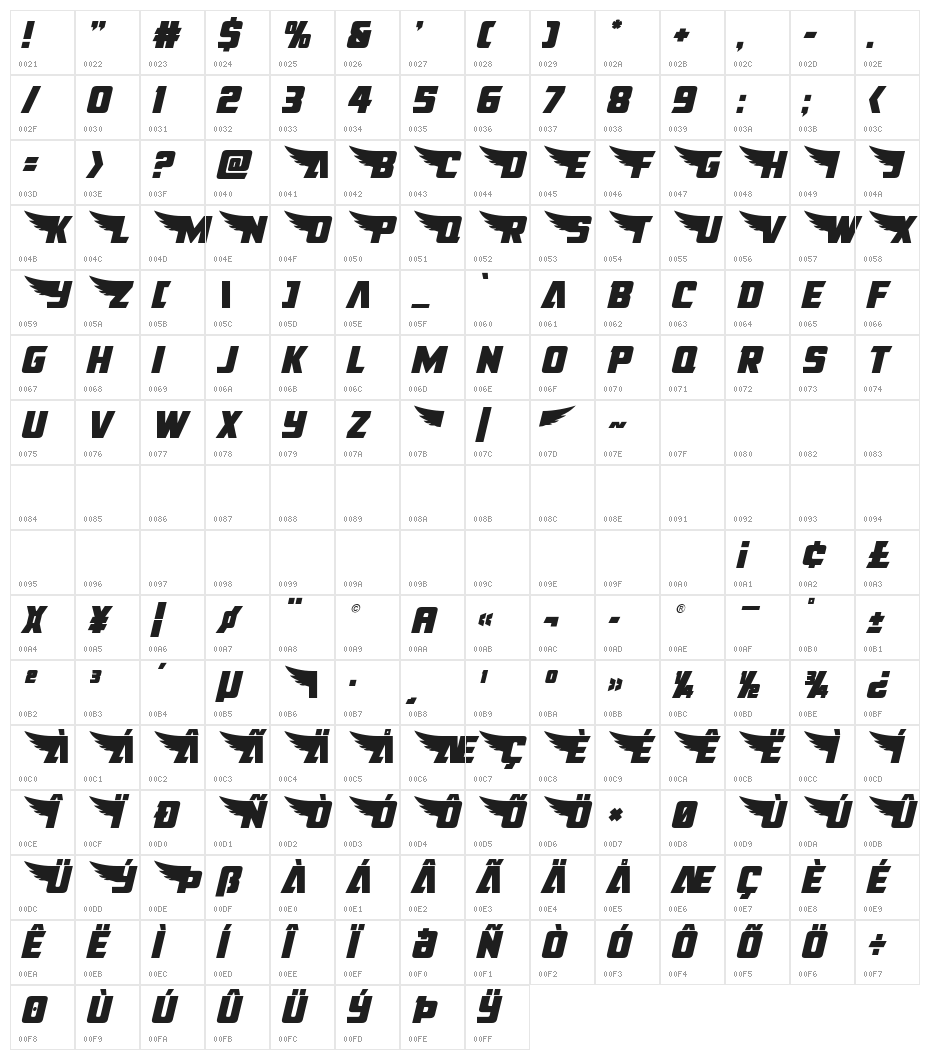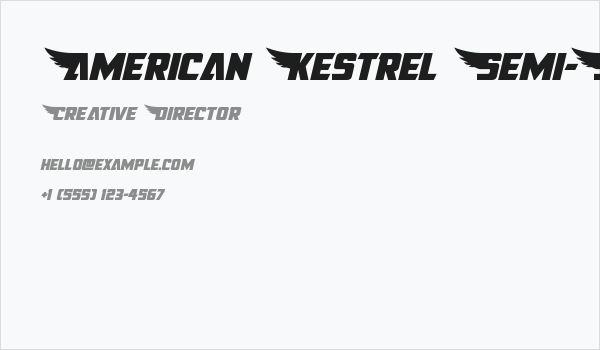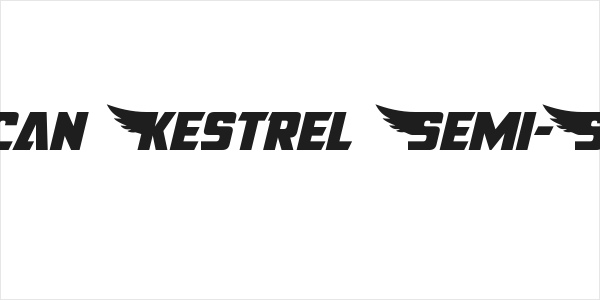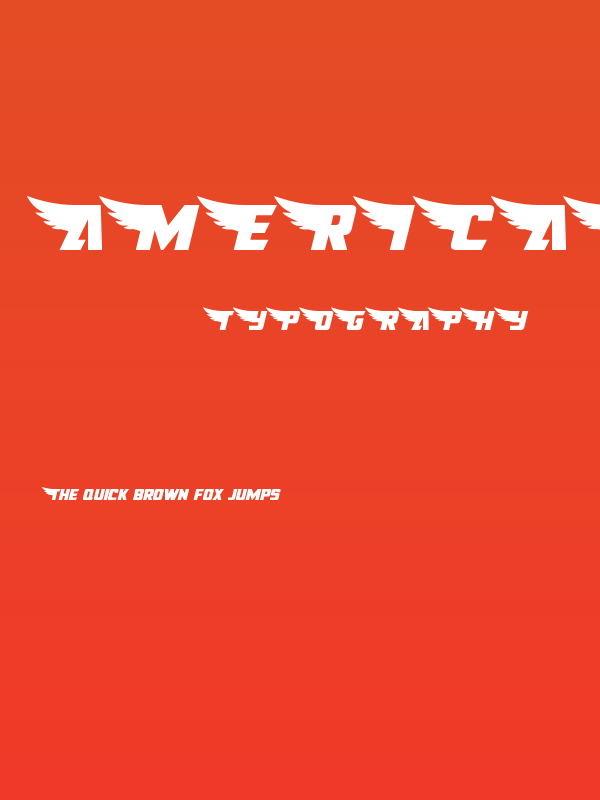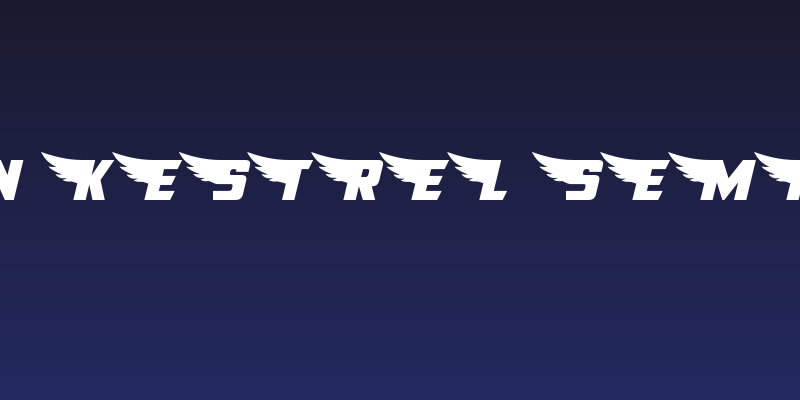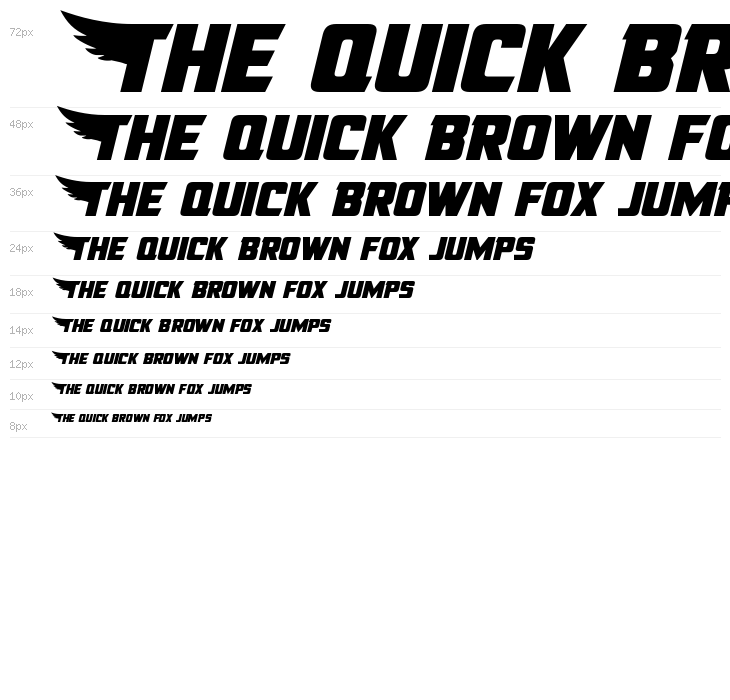
American Kestrel Semi-Straight Font
American Kestrel Semi-Straight Description
This font features a bold and dynamic design with a distinct wing-like extension on each character, giving it a sense of motion and speed. The uppercase letters are particularly striking, with sharp angles and a strong presence. The lowercase letters maintain the same boldness, ensuring consistency across the typeface. Numbers and special characters are equally robust, making them suitable for impactful designs. The overall style is modern and edgy, perfect for projects that require a sense of energy and movement.
| Proposed Projects | This font is perfect for sports branding, automotive advertisements, action movie posters, and any project that needs a sense of speed and excitement. |